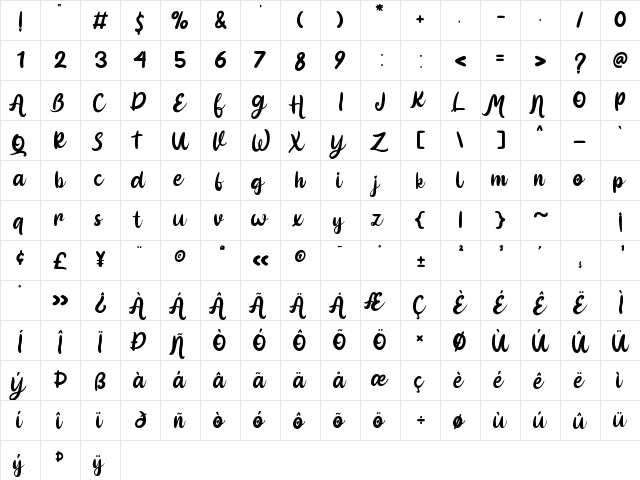
Pinky Cupid Regular
| Foundry | Attype Studio |
| Designer | Fadli Ramadhan Iskandar |
Design Context for Pinky Cupid Typeface
Pinky Cupid is a composed and adaptable typeface that performs quietly and consistently across a wide range of design contexts.